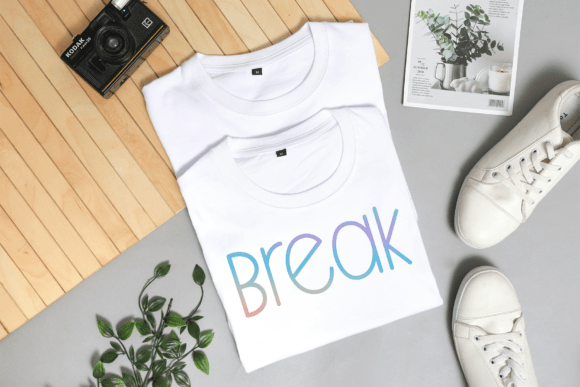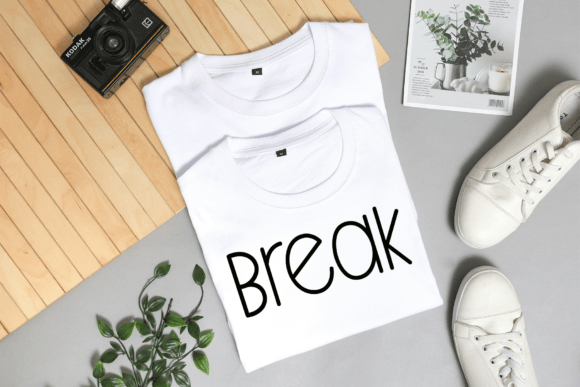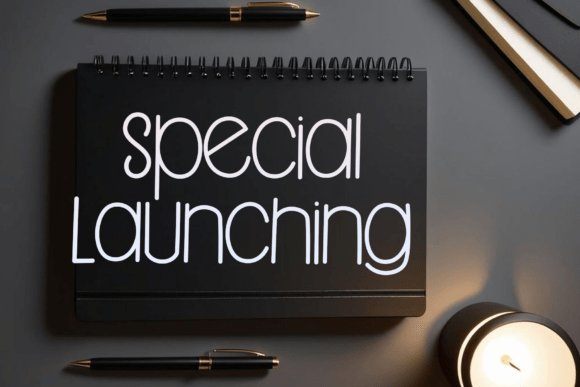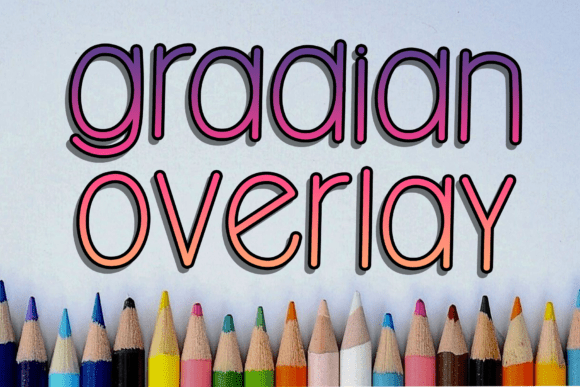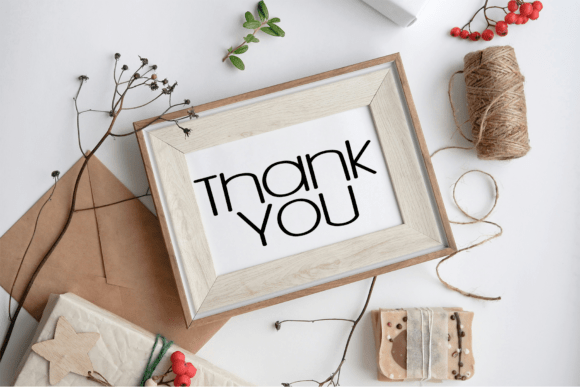
The Cutting Edge of Typography: A Deep Dive into Cutting Boards Font
I’ll never forget the time I was working on a project for a client who needed a custom sign for their boutique store. I had a clear vision of what I wanted to create, but there was one major hurdle: finding the perfect font. I scoured the internet, tried out countless options, but nothing seemed quite right. That was until I stumbled upon Cutting Boards, a minimal and neat sans serif font that instantly elevated my design. In this article, I’ll share my experience with Cutting Boards, its features, and how to make the most of it in your creative projects.
An Honest Review of Cutting Boards Font
• Clean and Minimal Design: Cutting Boards boasts a sleek, uncluttered aesthetic that makes it perfect for a wide range of projects, from signage to digital displays.
• Versatility: This font can easily be matched with an incredibly large set of projects, making it a valuable addition to any designer’s toolkit.
• 💡 Excellent Legibility: The font’s clear and concise design ensures that your message is conveyed effectively, even at smaller sizes.
While Cutting Boards is an excellent font, it’s not without its quirks. For instance:
• 🤔 Limited Extras: The font does not come with a wide range of extras, such as multiple weights or extensive language support.
• ⚠️ Not Suitable for Body Text: Due to its minimalist design, Cutting Boards may not be the best choice for lengthy body text, where readability is crucial.
The Backstory of Cutting Boards Font
Cutting Boards was designed with the goal of creating a clean and versatile font that could be used in a variety of contexts. The designer aimed to craft a font that was both minimalist and highly legible, making it perfect for designers, crafters, and creative hobbyists.
Q: What type of projects is Cutting Boards best suited for?
A: Cutting Boards is an excellent choice for projects that require a clean and minimalist aesthetic, such as signage, digital displays, and print materials.
Q: Does Cutting Boards come with language support?
A: Cutting Boards may have limited language support. Be sure to check the font’s documentation for specific details.
Q: Can I use Cutting Boards in both print and digital projects?
A: Yes, Cutting Boards is a versatile font that can be used in both print and digital projects, making it a great addition to any designer’s toolkit.